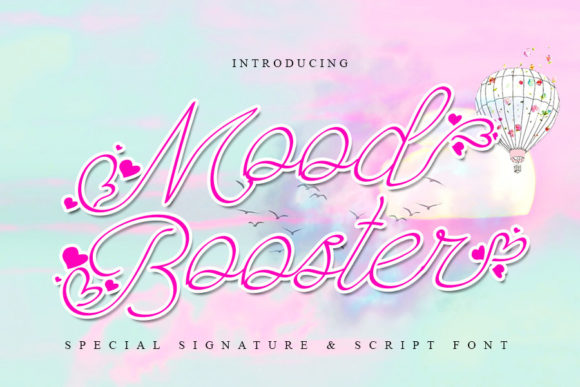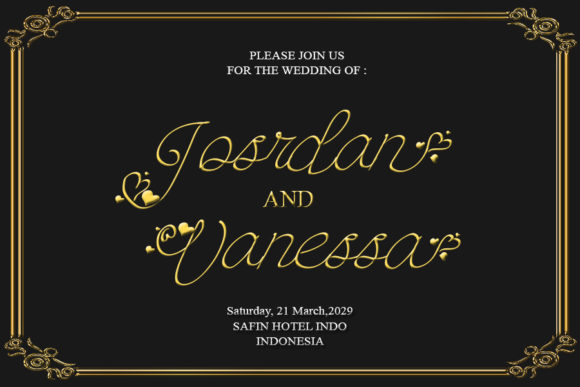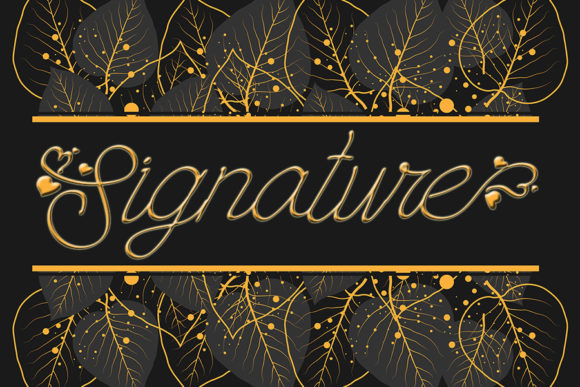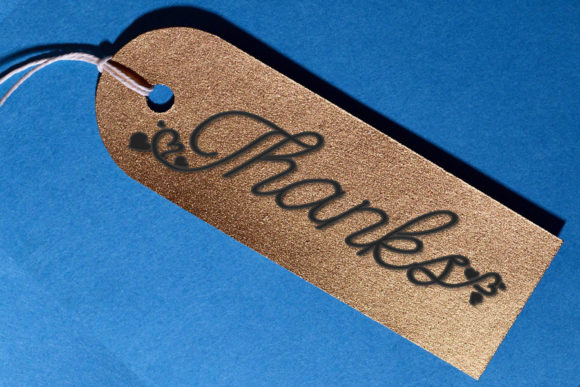
Mood Booster Font
About Mood Booster Font
Mood Booster is a whimsical script font with a relaxed theme, featuring a romantic style. No matter the topic, this font will be an incredibly asset to your fonts’ library, as it has the potential to elevate any creation.